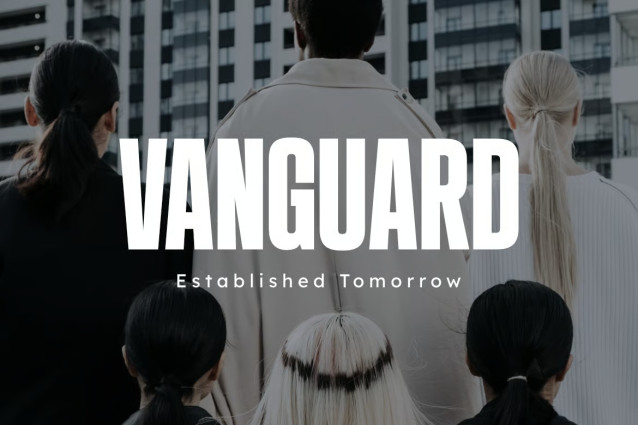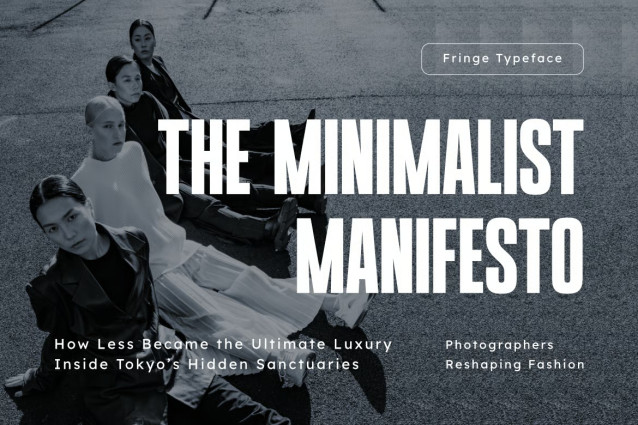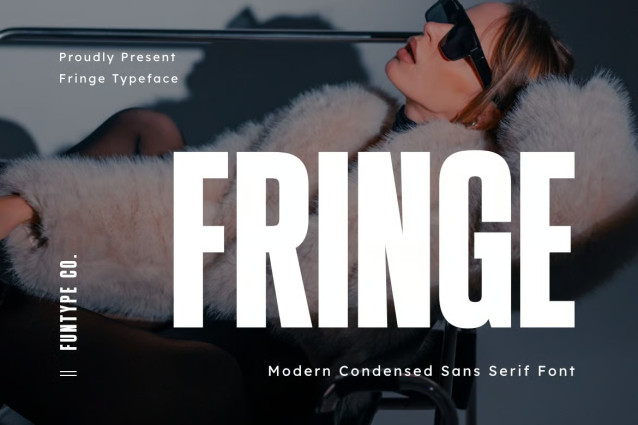
Fringe – Modern Condensed Sans Serif Font
Fringe is a sophisticated, bold, and modern condensed sans serif font, engineered to bring an elegant editorial presence, tall space-saving geometry, and high-end display aesthetic to contemporary graphic layouts. Featuring a sleek vertical silhouette, heavy block proportions, and refined linear cuts, Fringe introduces a luxury magazine presence, premium cosmetic branding, high-concept architectural identity, and prominent digital media presentation designed to claim absolute visual focus.
This font family is the ultimate choice for creative directors, publication designers, and luxury agency brand managers looking to implement a robust typography identity for major text hierarchies. Whether you are developing bold corporate enterprise logotypes, high-fashion editorial covers, luxury perfume and cosmetics packaging, cinematic movie title sequences, architectural showcase headers, or prominent digital web banners, Fringe stands out with supreme legibility and commanding structural confidence.